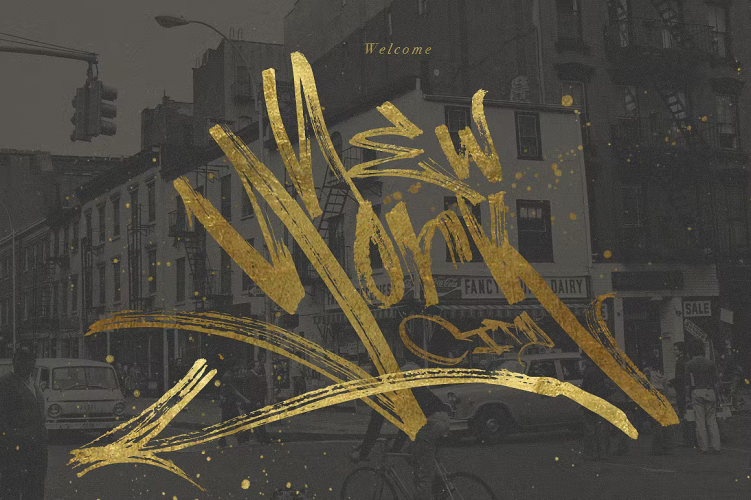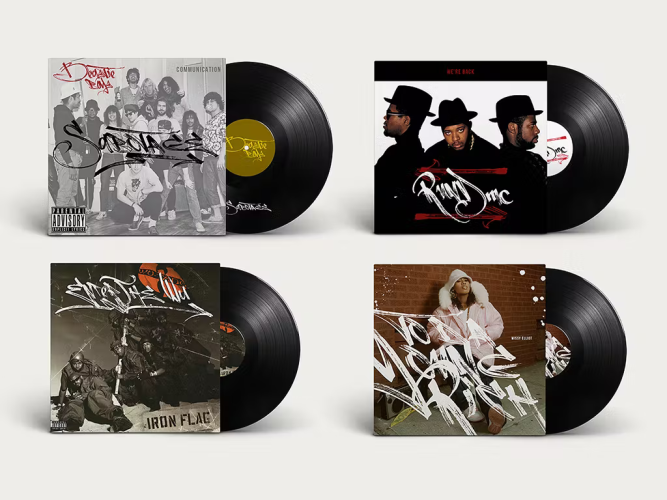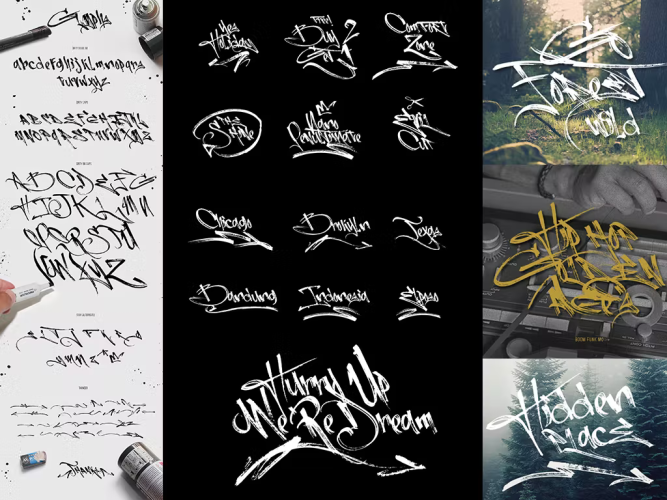
Burnts Maker Font
Burnts Maker Font born from vandals, bomber, street art, fast technique about writing, hip-hop, gravity, very suitable for Music promotion, cover Album, promotion, Gigs…
Burnts Maker Font born from vandals, bomber, street art, fast technique about writing, hip-hop, gravity, very suitable for Music promotion, cover Album, promotion, Gigs or anything else. Burnts marker come with Tagging style, you could make like D.I.Y maker personally
Where Burnts Maker Font works best
A short phrase in Burnts Maker Font carries warmth that a typeset sans cannot fake; keep the rest of the card plain.
Chalkboard-style headings in Burnts Maker Font make a menu feel hand-made. Keep the dish descriptions in a simple face so prices stay readable.
One line of Burnts Maker Font over a photo is enough; the script carries the tone and the caption does the work.
What kind of work does Burnts Maker Font suit?
It sits in the Script And Handwritten group and reads as handwritten, music, professional, script. That makes it a candidate wherever those qualities help: headings, packaging, social graphics and brand work. Set it at the size you plan to use before deciding.